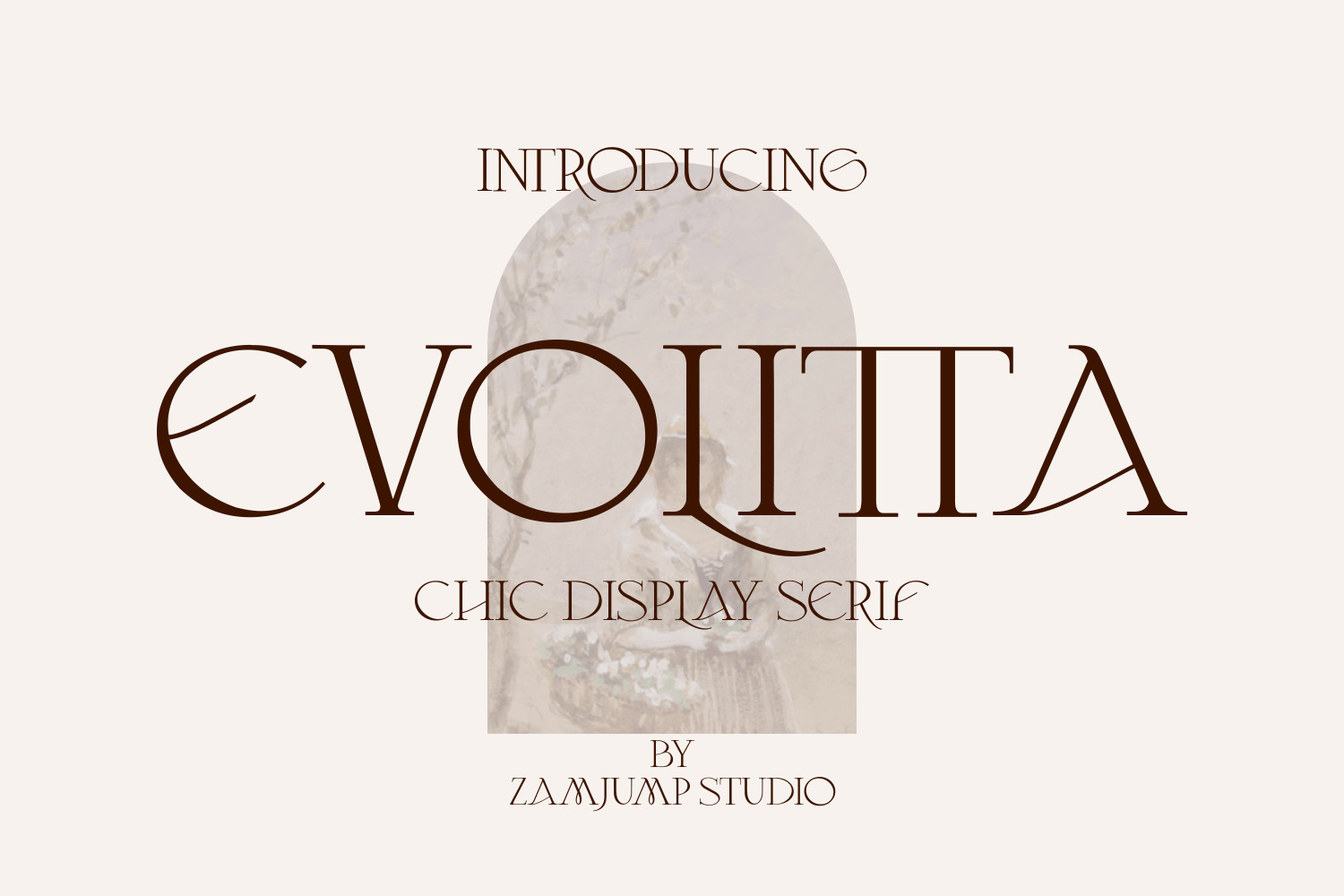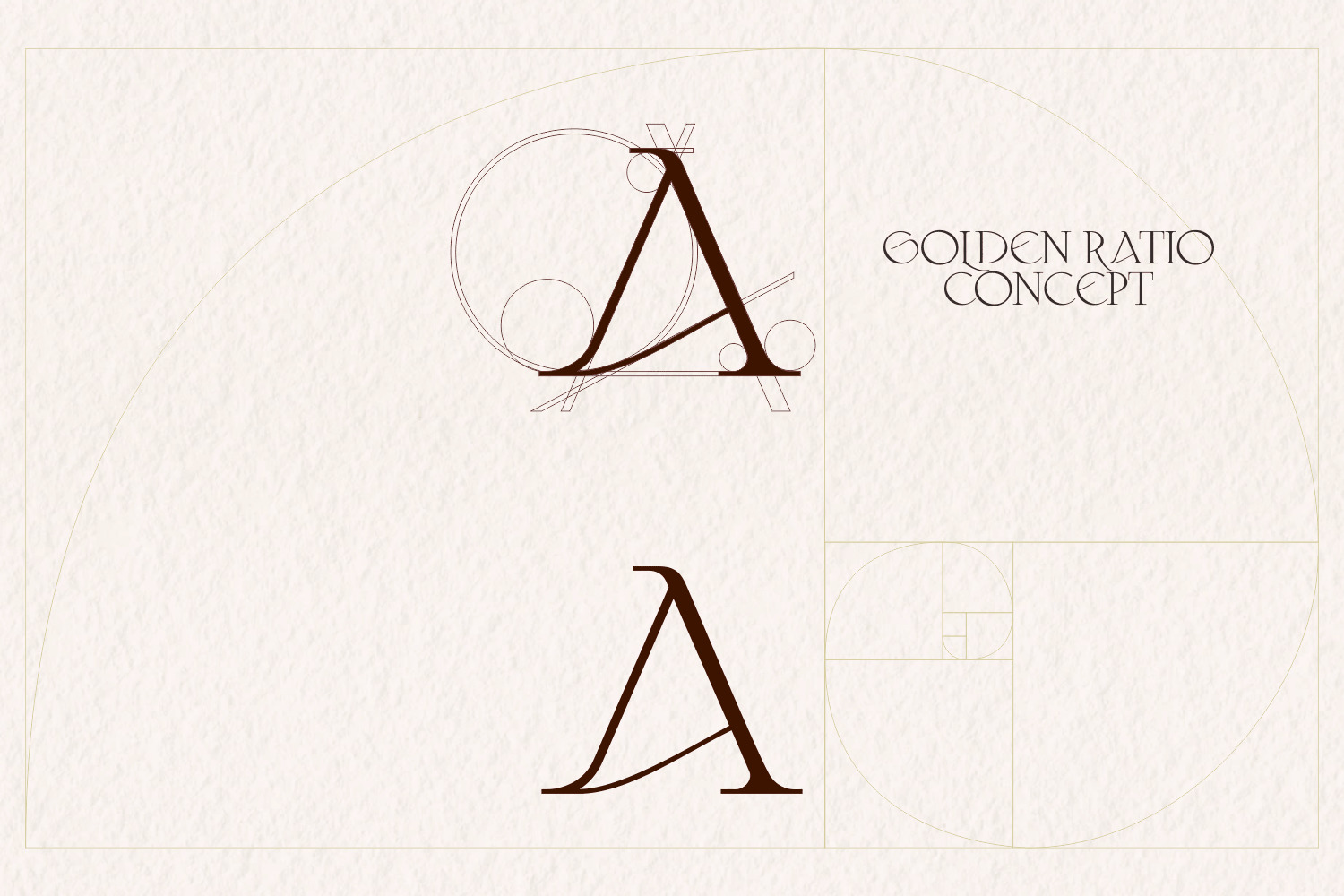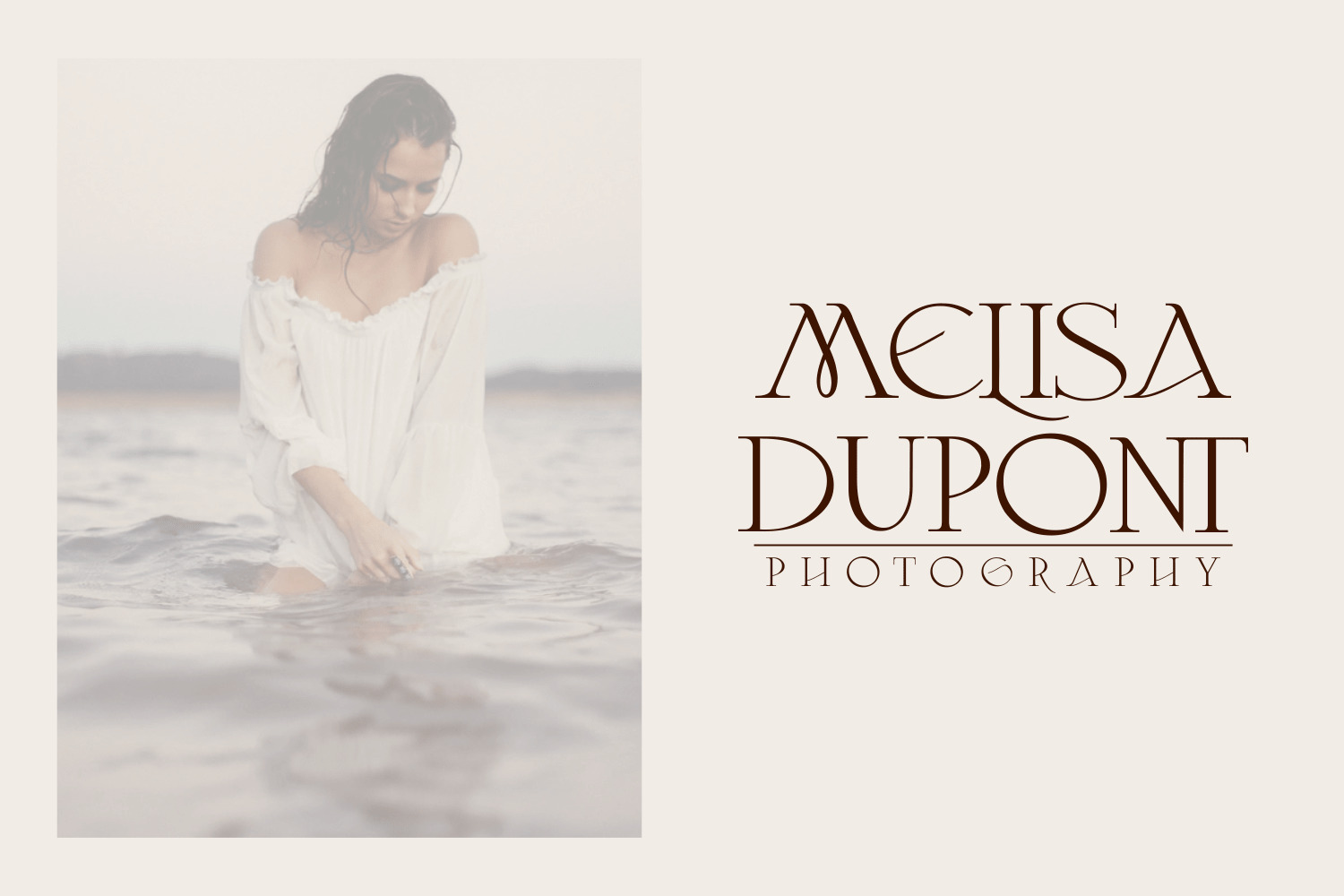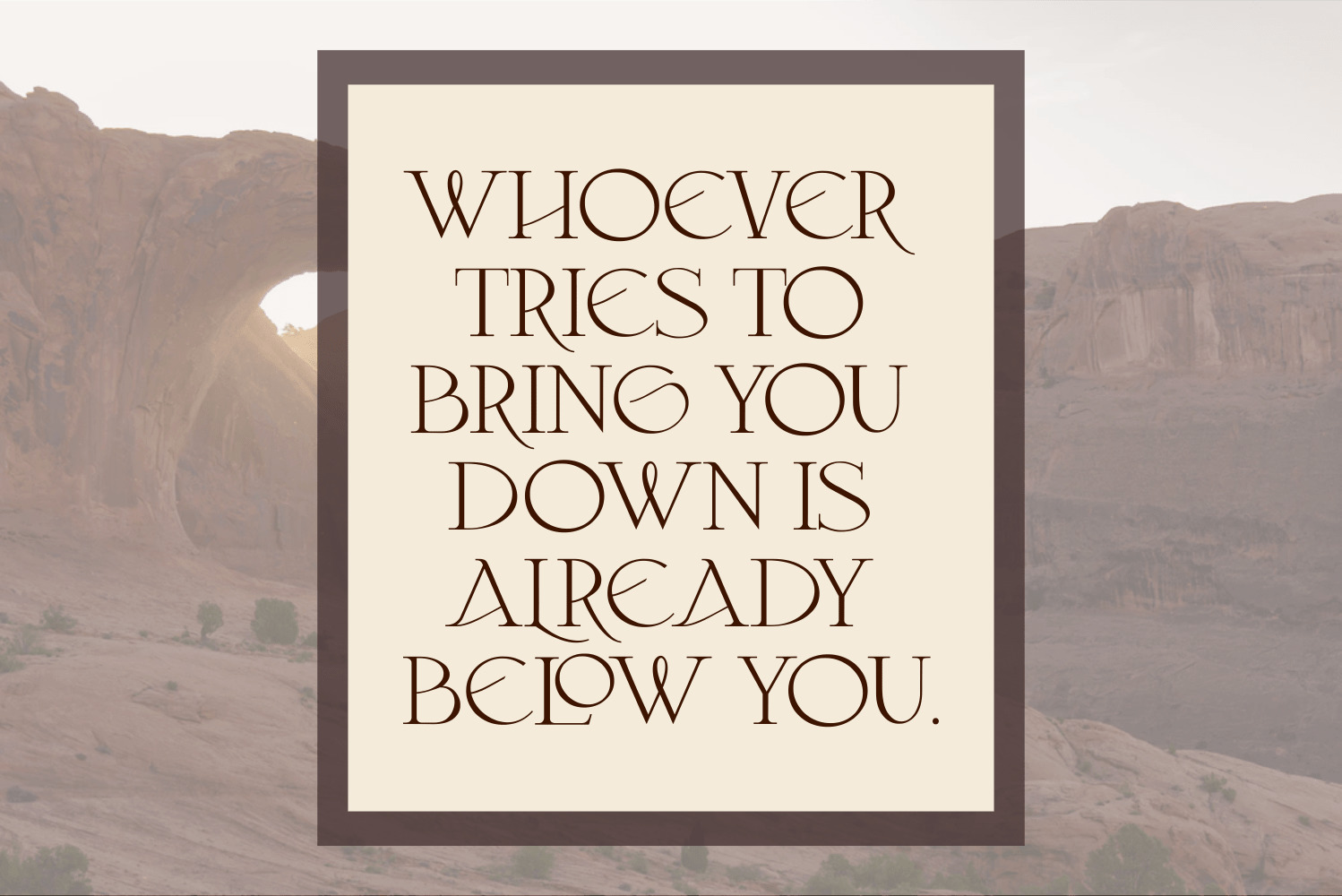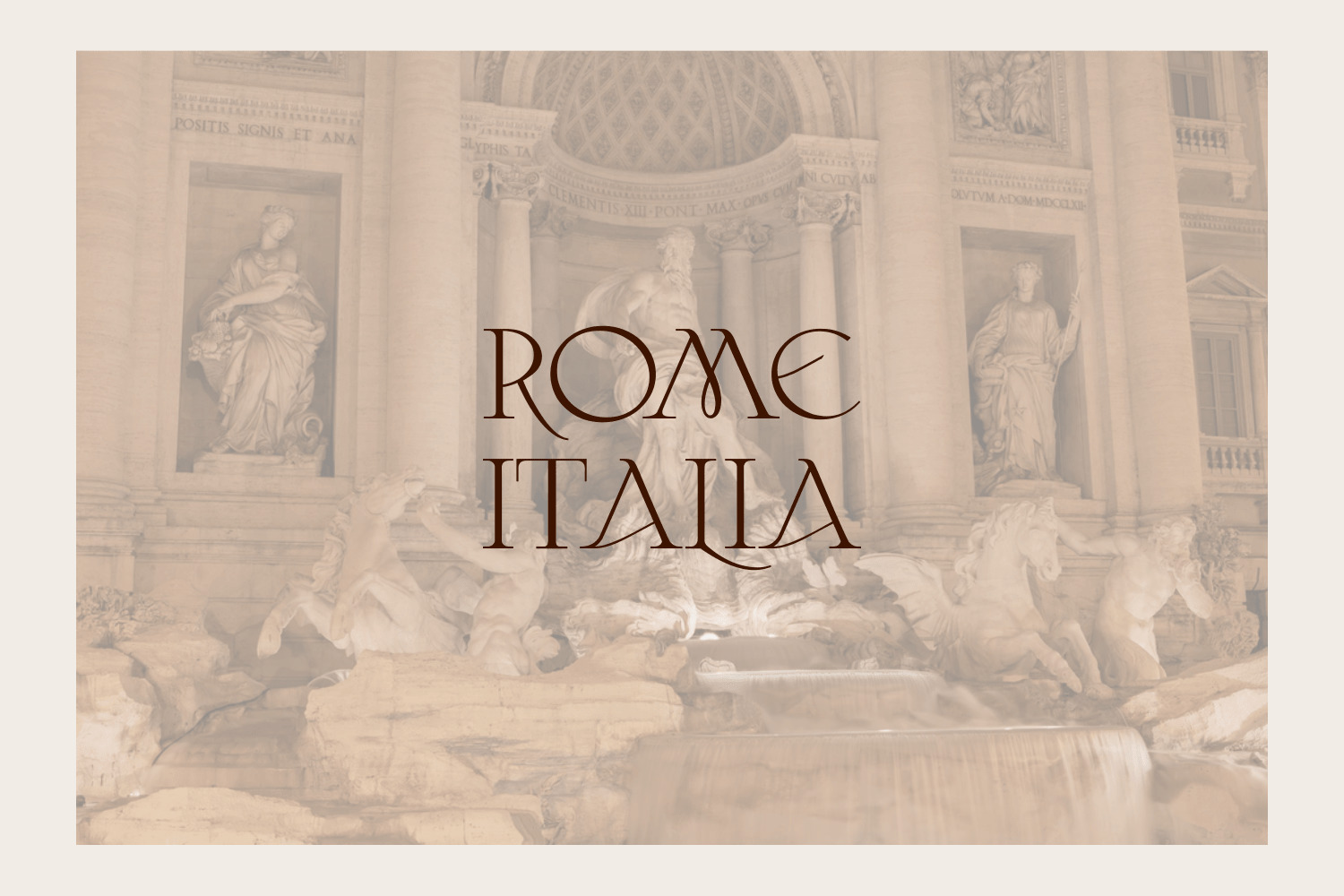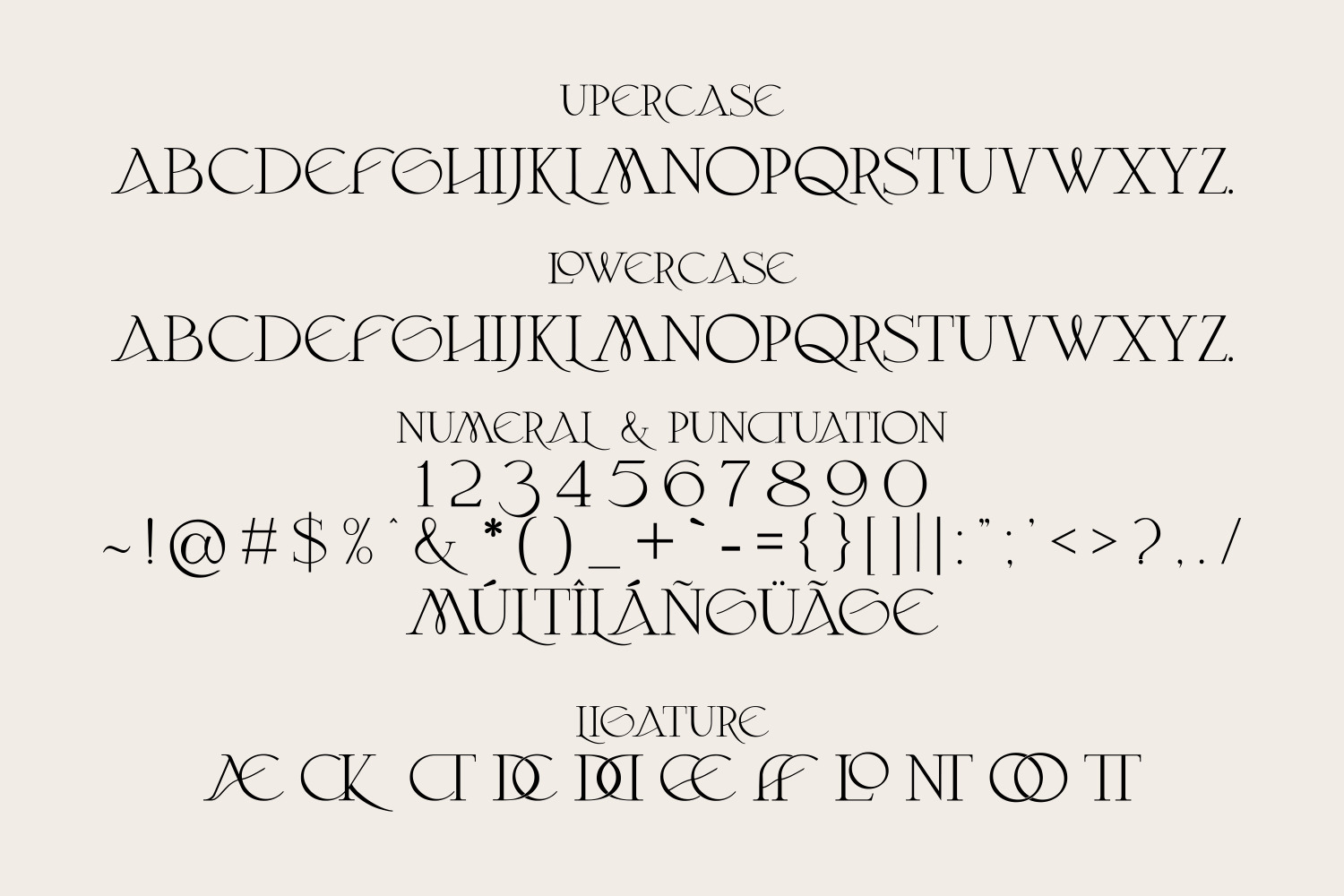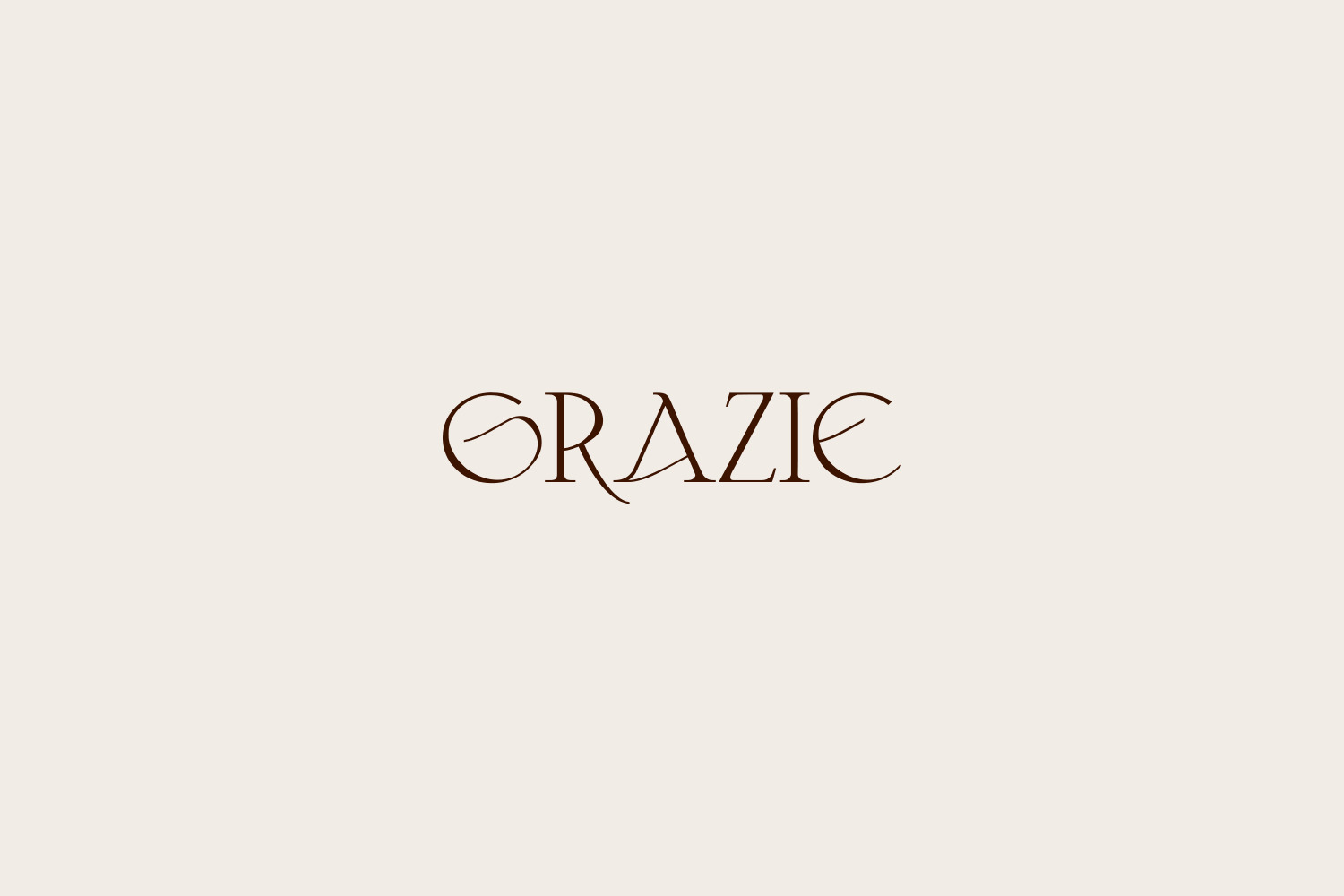
Evolitta Font
Evolitta - Chic & elegant serif look with lovely contrasts. Specially designed for elegant classic themed projects, it is perfect for creating designs with an elegant, chic lifestyle, such as quotes, logos, professions, web pages, and many more.
multi language
ligature